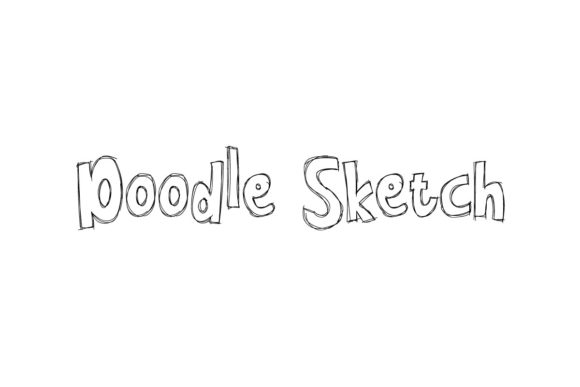
Embark on a journey into the world of creativity and self-expression with Doodle Sketch Font, a captivating display font that will transform your designs into works of art. Inspired by the charm of handwritten notes on a chalkboard, Doodle Sketch Font captures the essence of authenticity and adds a personal touch to your projects.
With its playful and whimsical style, Doodle Sketch Font is the perfect choice for creating eye-catching quotes, captivating teaching materials, and personalized designs that resonate with your audience. Its unique lettering style adds a touch of warmth and approachability, inviting viewers to engage with your message on a deeper level.
Step into a world where imagination knows no bounds. Doodle Sketch Font opens up a realm of endless possibilities for your creative endeavors. Whether you're crafting digital designs, printed materials, or social media posts, this font will elevate your work to new heights.
Dive into the delightful world of Doodle Sketch Font and experience the joy of creating designs that connect with your audience. Let the font's charming imperfections and playful spirit inspire your creativity and captivate the hearts of those who encounter your work.